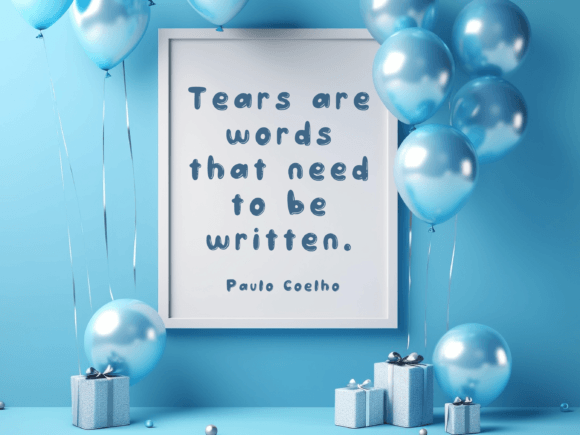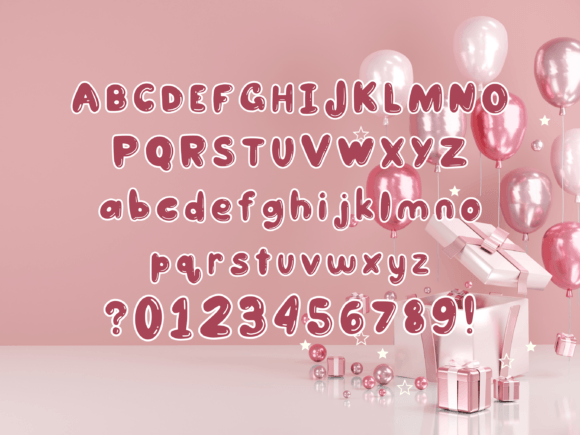
Introduction to Pity Party Font Font
Fonts play a crucial role in design, and the Pity Party Font font is a typeface that brings both character and versatility to any project. Whether you’re working on a branding project, a website, or a print design, the Pity Party Font font offers a unique style that can elevate your work.
| π Font Name | Pity Party Font |
| π€ Author | Abi Grey |
Get ready to join the most whimsical party in town with our playful balloon font.
This delightful typeface is a must-have for all your fun and festive design projects Whether youβre planning a quirky birthday bash, crafting cheerful greeting cards, or designing eye-catching party banners, βPity Partyβ brings an air of celebration and merriment.
Key Features of Pity Party Font Font
Why Choose Pity Party Font Font?
The Pity Party Font font is more than just a typeface β it’s a design tool that helps you communicate your message with style and clarity. Its unique character set and versatile design make it suitable for a wide range of applications, from elegant invitations to bold headlines.
With its carefully crafted letterforms and balanced proportions, the Pity Party Font font ensures readability and visual appeal across all mediums.
What makes Pity Party Font font special?
The Pity Party Font font stands out with its unique design, exceptional readability, and versatility across various design applications.